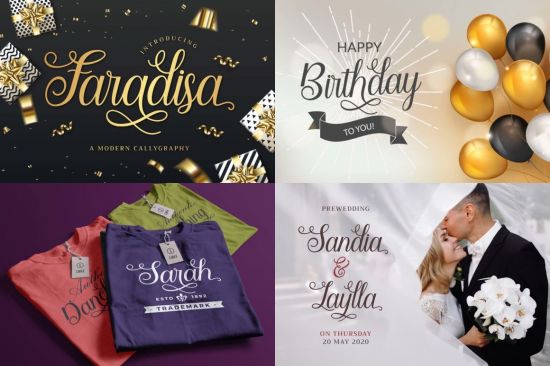
Faradisa is a modern calligraphy font. It features a varying baseline, smooth lines, gorgeous glyphs and stunning alternates. This font is PUA encoded which means you can access all of the great glyphs and swashes with ease! It also features a wealth of special features including alternate glyphs and ligatures.